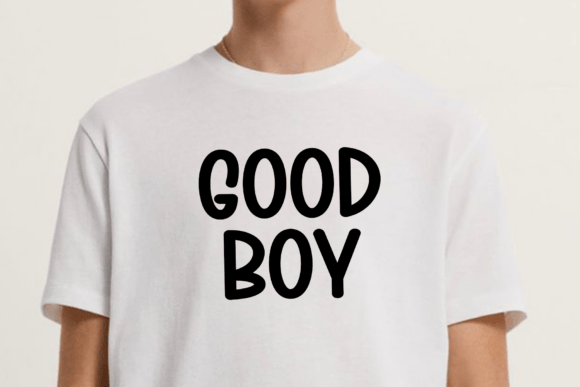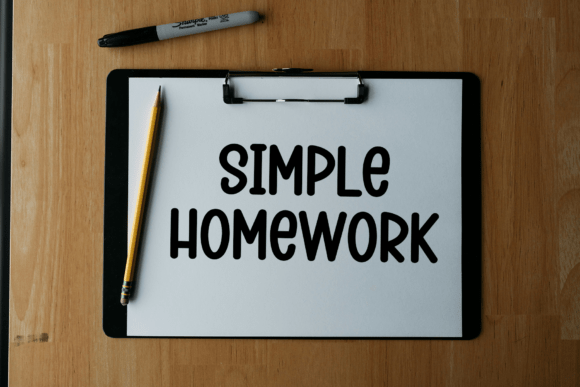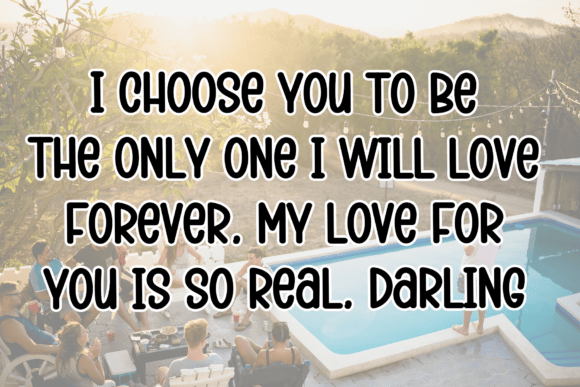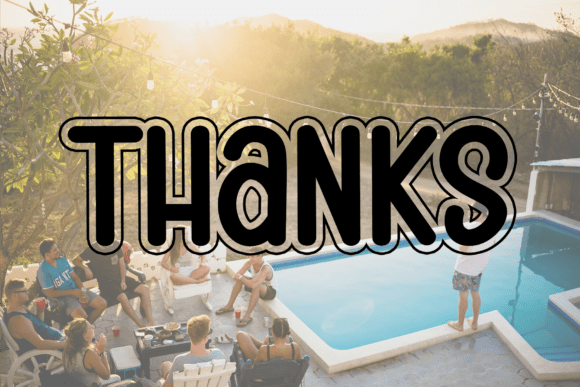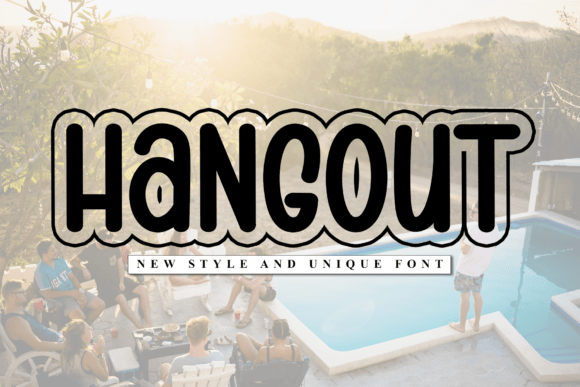
Introducing Hangout Font: The Perfect Blend of Simplicity and Friendliness
In the world of typography, fonts play a crucial role in conveying the tone and personality of a brand or design. For designers and crafters looking for a font that combines simplicity with a friendly, approachable vibe, Hangout Font is an excellent choice. This casual and neat font is designed to capture the essence of modern handwritten typography with a polished finish, making it ideal for a wide range of applications.
Design Characteristics of Hangout Font
Hangout Font boasts clean lines, balanced letterforms, and subtle rounded edges that give it a unique and charming appeal. The font’s design is characterized by:
- Clean Lines: The font features clean and crisp lines that provide clarity and precision, making it perfect for digital content and print materials.
- Balanced Letterforms: The letterforms are carefully crafted to ensure balance and harmony, creating a visually appealing and cohesive look.
- Subtle Rounded Edges: The subtle rounded edges add a touch of warmth and friendliness to the font, making it approachable and inviting.
Versatility and Applications of Hangout Font
Hangout Font is a versatile font that can be used in a variety of applications, including:
- Branding: The font’s friendly and approachable vibe makes it perfect for branding projects, such as logos, business cards, and letterheads.
- Headlines: The font’s clean lines and balanced letterforms make it ideal for headlines, titles, and subtitles.
- Packaging: The font’s warm and inviting touch makes it suitable for packaging designs, such as product labels and packaging materials.
- Digital Content: The font’s crisp structure and versatile style make it perfect for digital content, such as blog posts, social media graphics, and website headers.
Benefits of Using Hangout Font
Using Hangout Font in your designs offers several benefits, including:
- Warm and Inviting Touch: The font adds a warm and inviting touch to any design, making it perfect for brands and designers looking to create a friendly and approachable vibe.
- Clarity and Charm: The font delivers clarity and charm in equal measure, making it ideal for designs that require both precision and personality.
- Versatility: The font’s versatility makes it suitable for a wide range of applications, from branding and headlines to packaging and digital content.
Why Designers and Crafters Love Hangout Font
Designers and crafters love Hangout Font for several reasons, including:
- Easy to Read: The font’s clean lines and balanced letterforms make it easy to read, even at small sizes.
- Highly Versatile: The font’s versatility makes it suitable for a wide range of applications and design projects.
- Unique and Charming: The font’s subtle rounded edges and warm and inviting touch make it unique and charming, adding personality to any design.
In conclusion, Hangout Font is a casual and neat font that combines simplicity with a friendly, approachable vibe. With its clean lines, balanced letterforms, and subtle rounded edges, it captures the essence of modern handwritten typography with a polished finish. Ideal for branding, headlines, packaging, and digital content, Hangout Font adds a warm and inviting touch to any design. Its versatility, clarity, and charm make it a popular choice among designers and crafters.